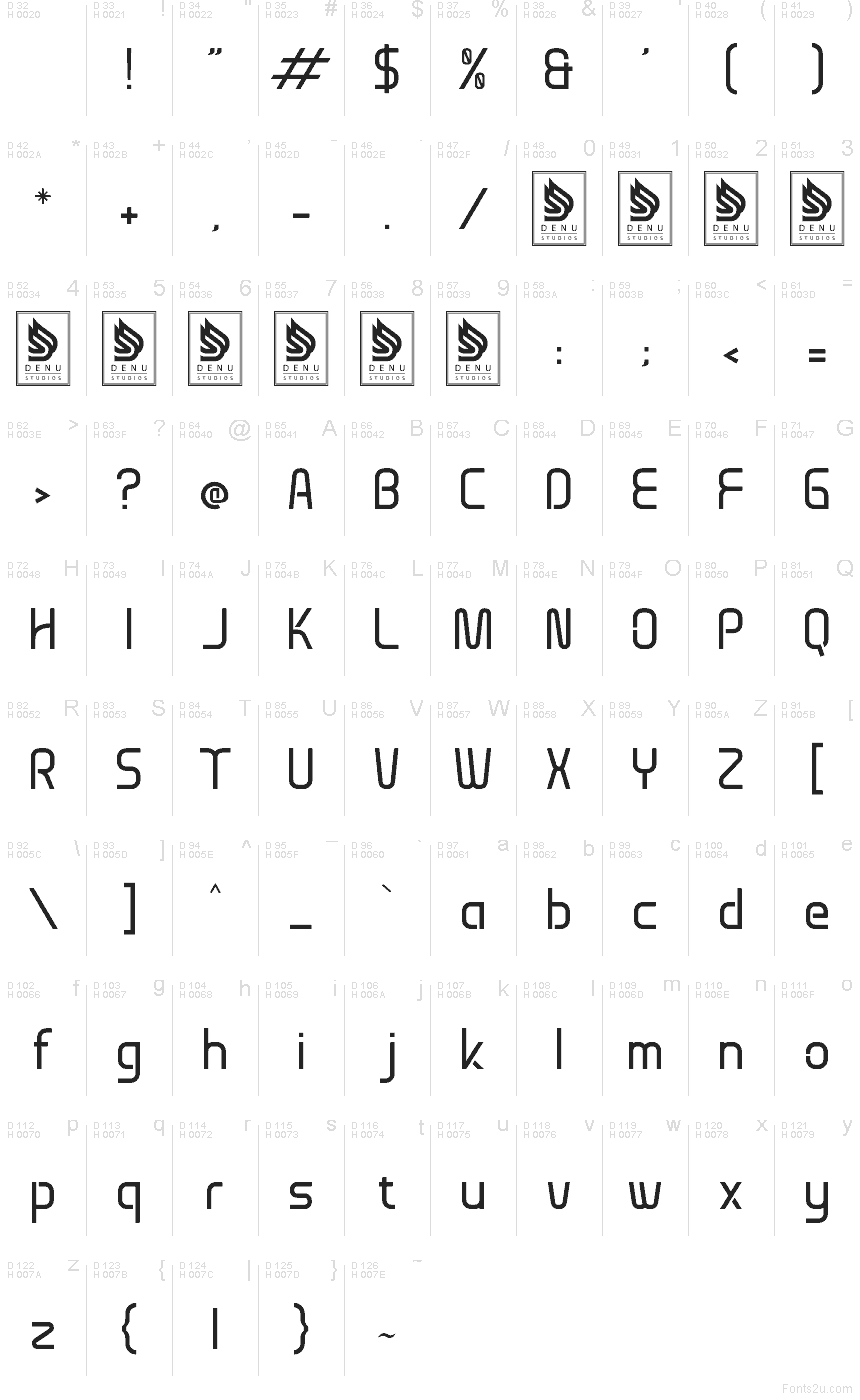
Arlork by Denustudios is a free retro-techno display font with tall, rounded letters and a smooth, monoline rhythm. Its shapes feel lightly futuristic but not cold - the broad curves, narrow joins, and almost modular flow give the font a soft electronic character that reads more like vintage interface lettering than hard sci-fi.
That makes it a natural fit for music posters, gaming graphics, streamer branding, cover lines, and title cards where a short wordmark needs a sleek period accent. As a free font, Arlork also suits logo sketches, packaging names, and social headers, especially when you want the letters to feel connected by shape rather than weight.